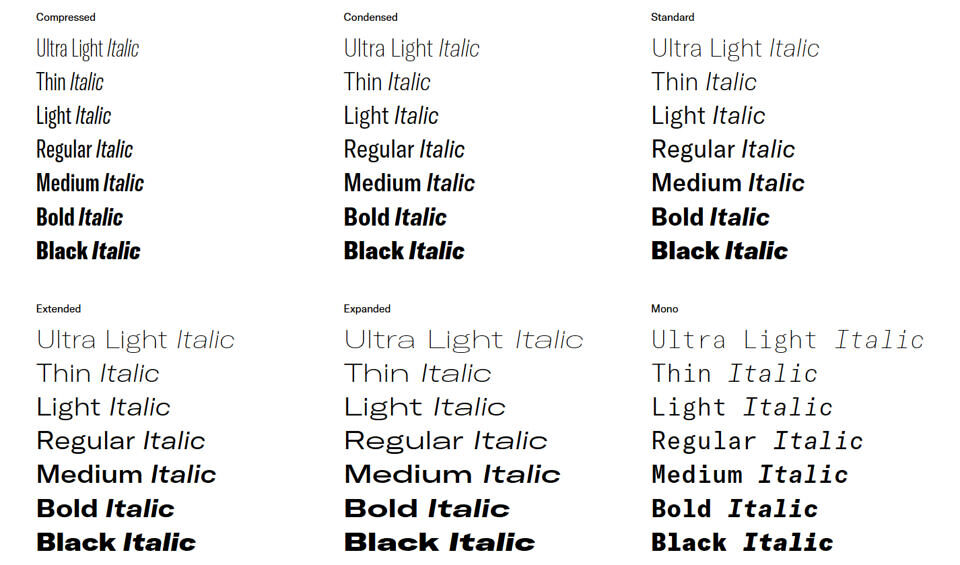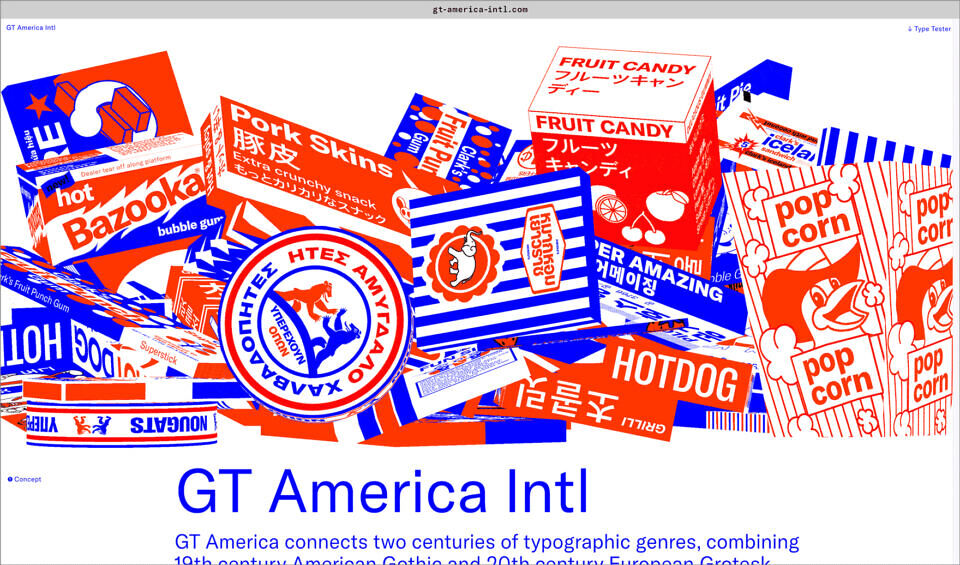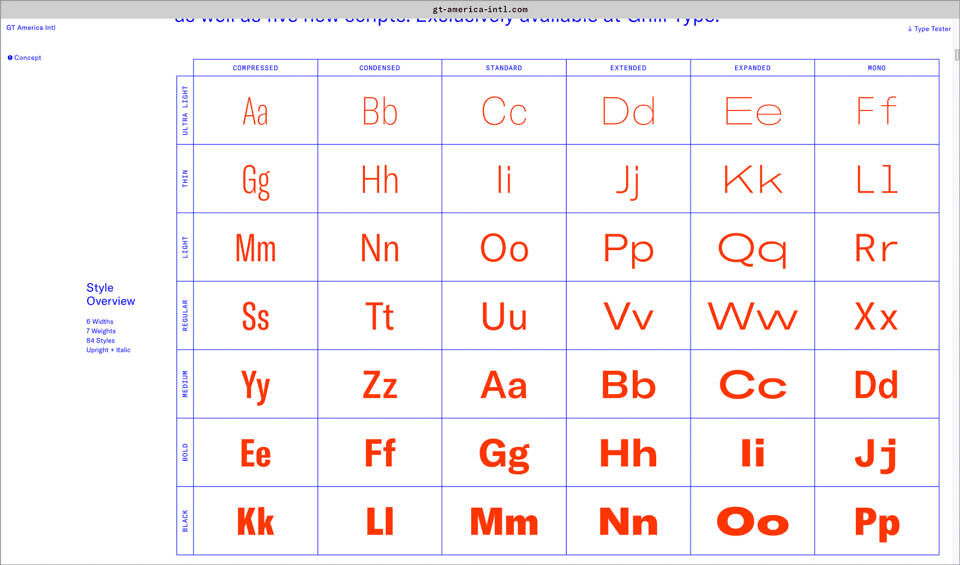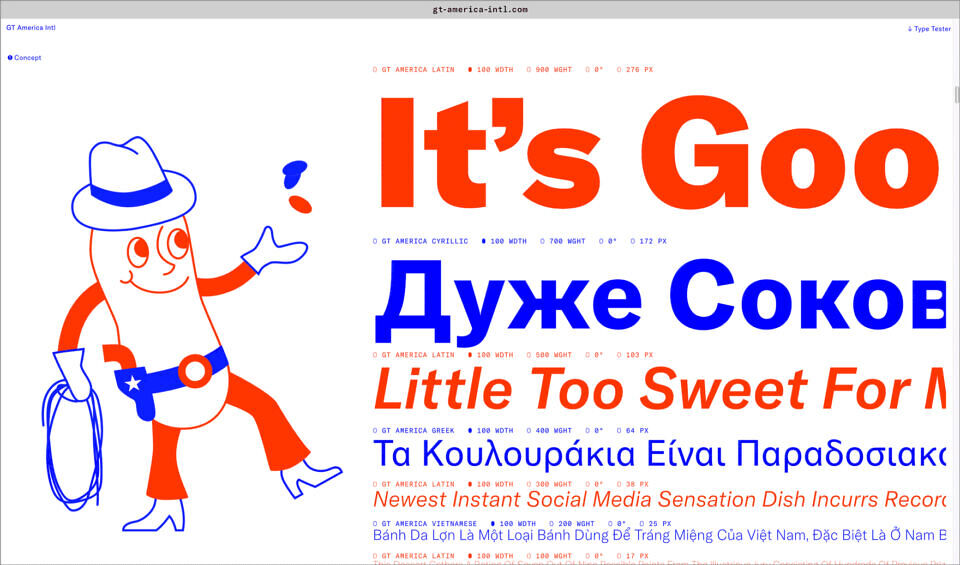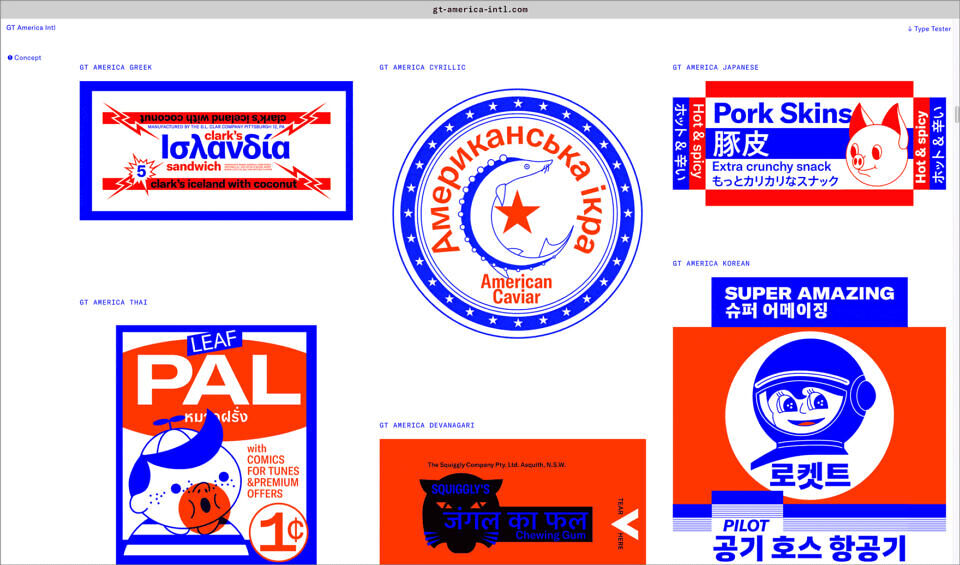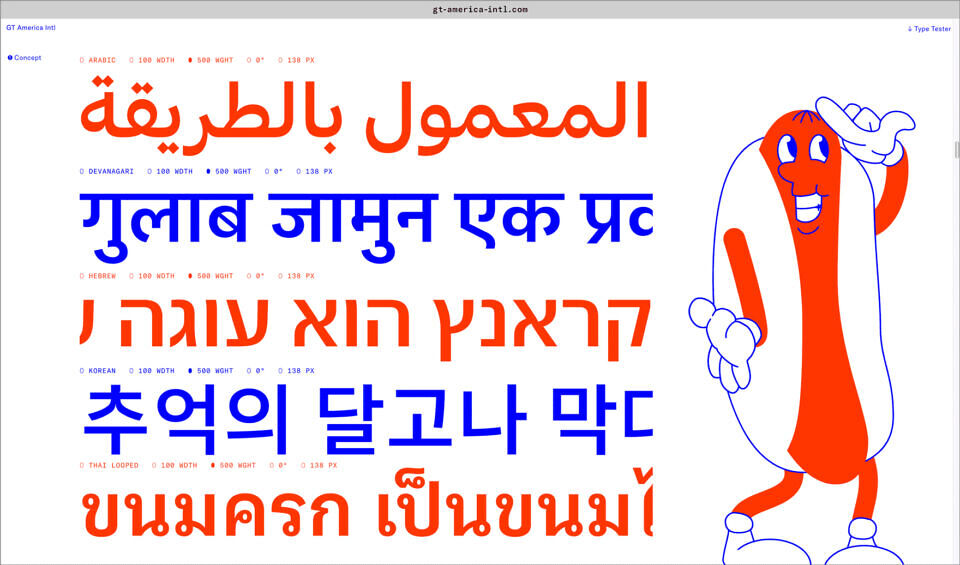
GT America Font
GT America font connects two centuries of typographic genres, combining 19th century American Gothic and 20th century European Grotesk styles. The result is one cohesive typeface family unified under the best design features from both traditions.
Originally released in 2016, this update implements the typographic system in variable font format as well as five new scripts.
Designed by Noël Leu, with Seb McLauchlan. Script extensions by Grilli Type with Tania Chacana. Consulting by Maria Doreuli (Cyrillics), Vassilis Georgiou (Greek), Donny Trương (Vietnamese).